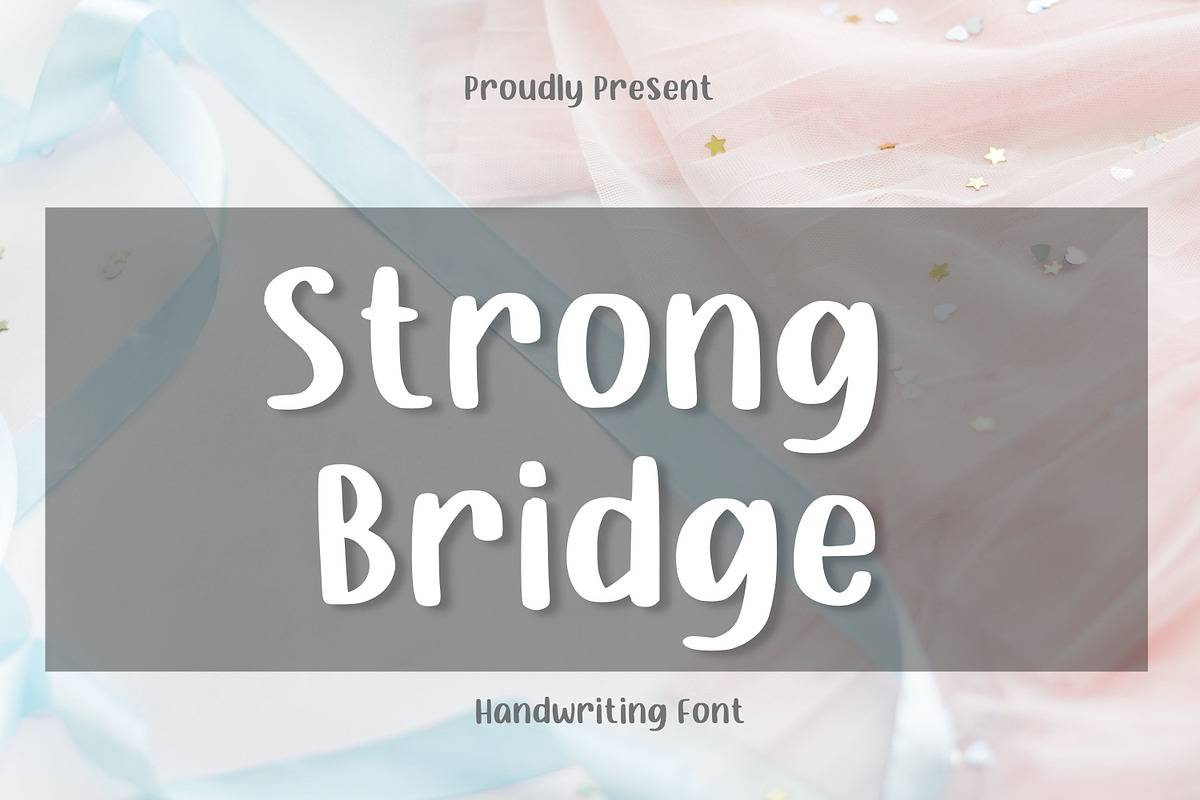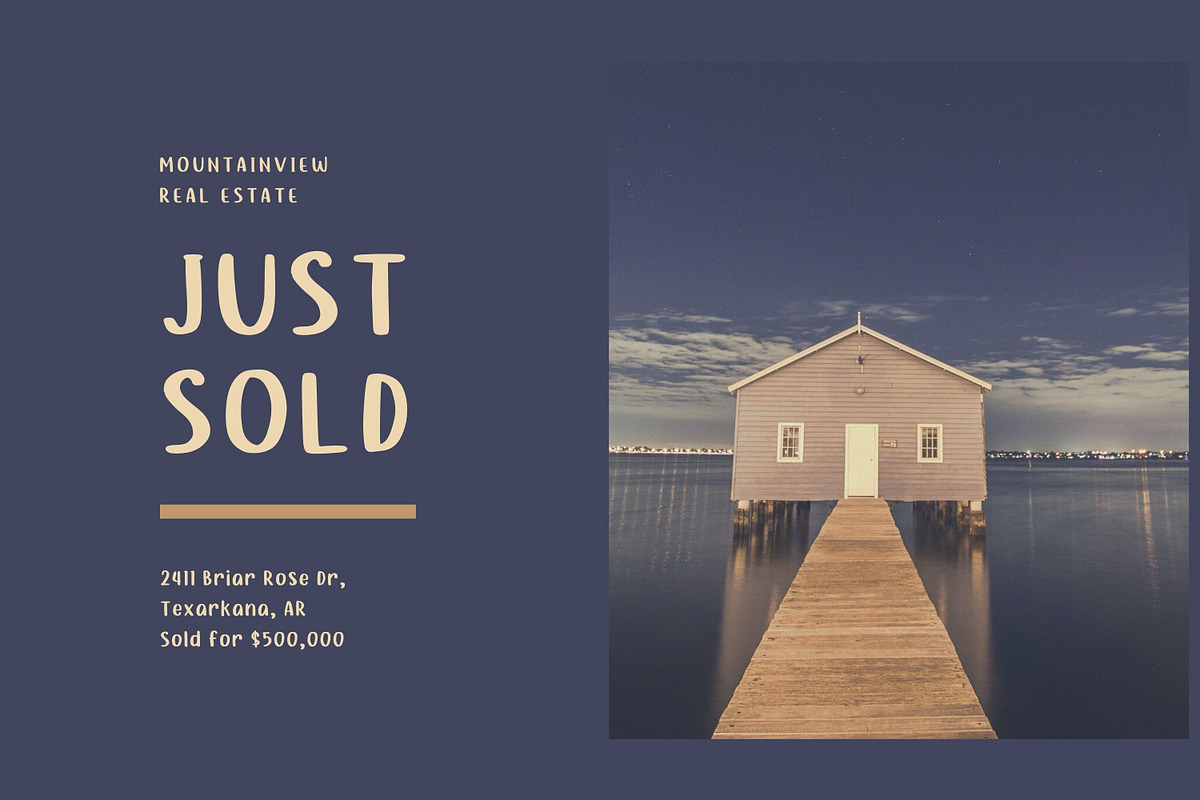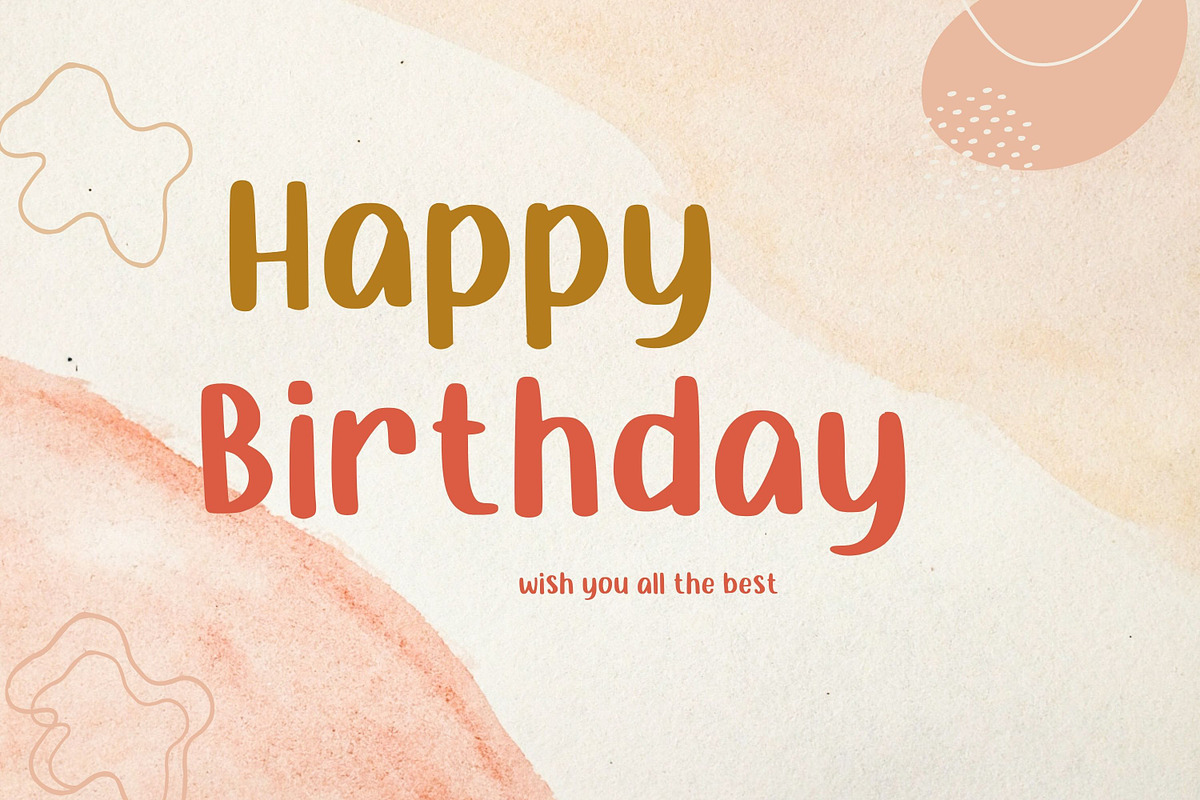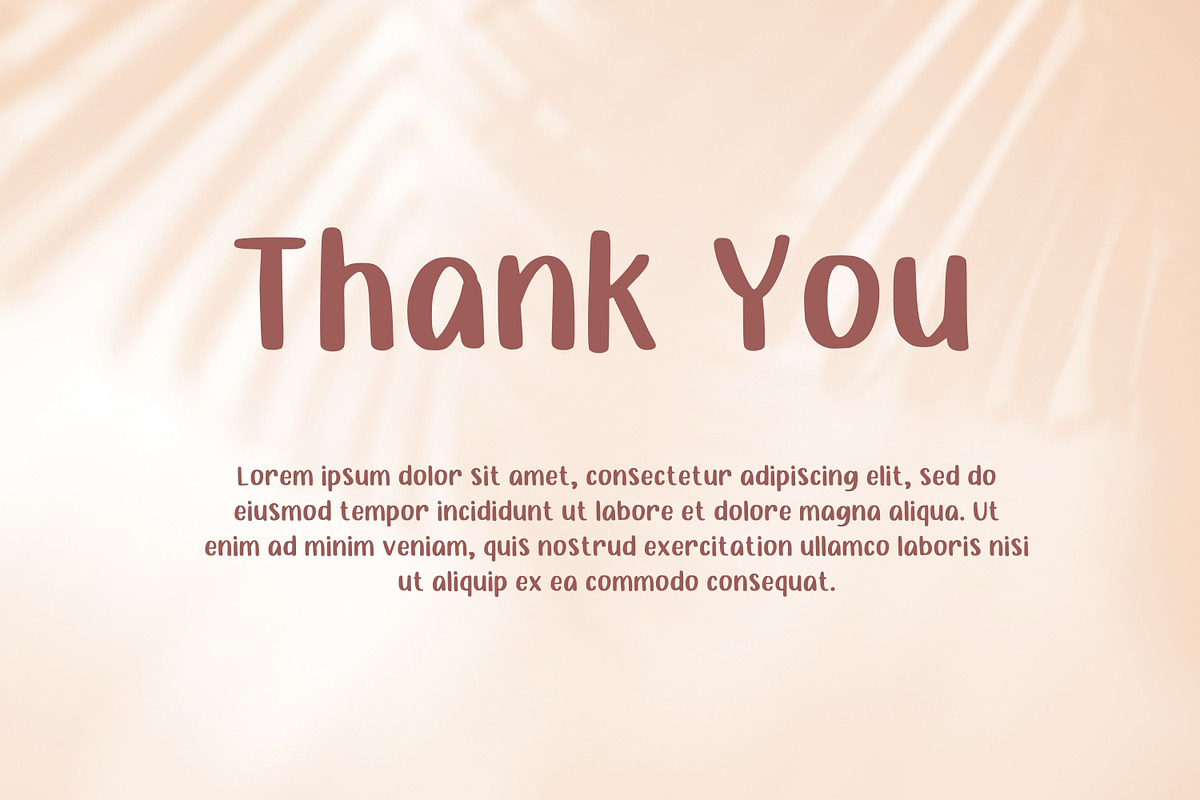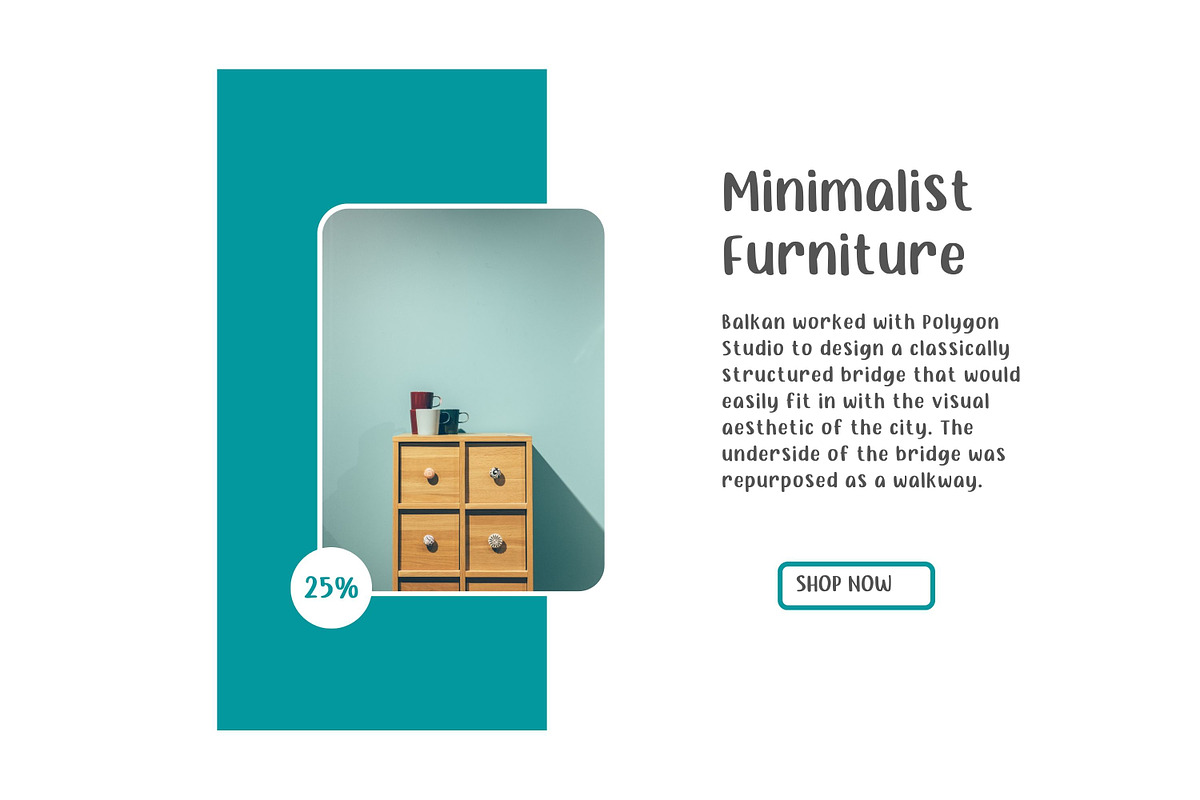
Strong Bridge
Immerse yourself in the world of textual creativity with Strong Bridge, a bold and elegant font. Perfectly suited for branding endeavors and business-centric designs, this distinct typeface also masterfully enhances any crafting or creative project. With its striking presence, Strong Bridge infuses a touch of sophistication in every application, transforming ordinary creations into extraordinary. Experience the powerful aesthetics of Strong Bridge, where elegance meets function in every stroke.